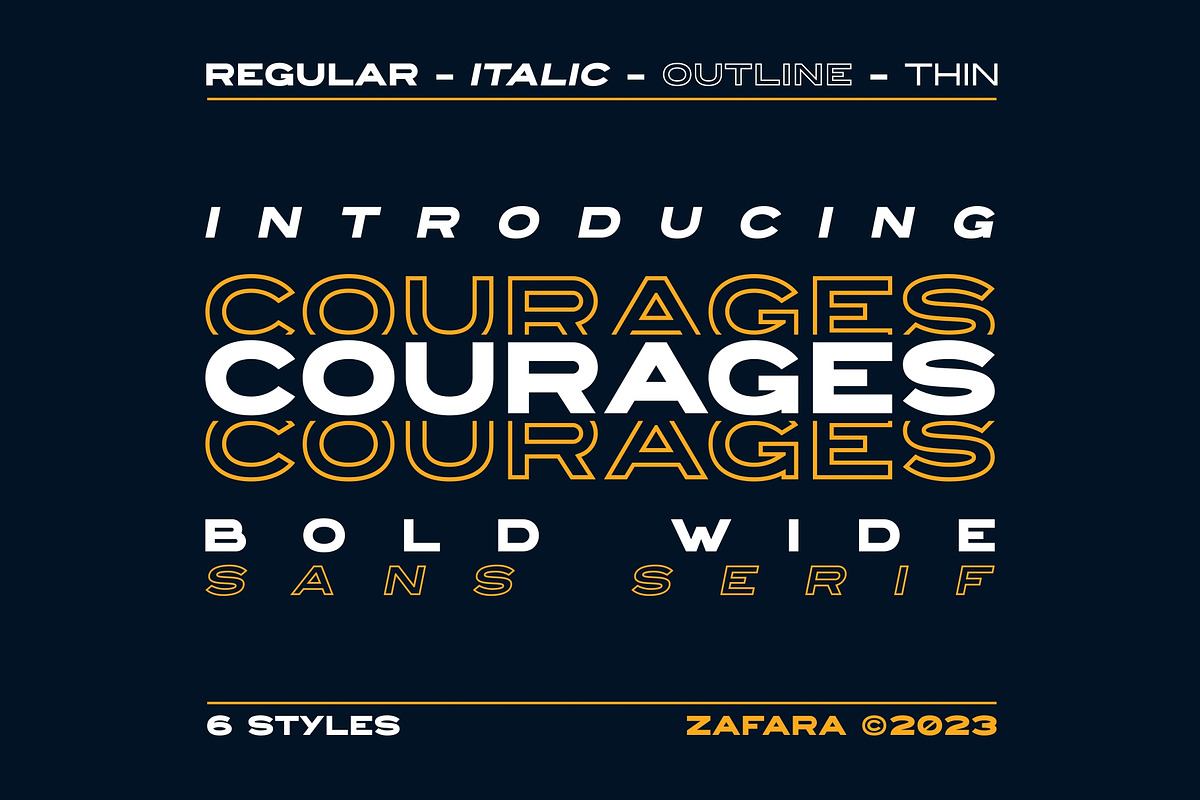
COURAGES - Bold Wide Sans Serif Font Free Download is a striking and powerful typeface designed to make a bold statement. With its wide stance, strong lines, and clean structure, COURAGES is perfect for headlines, logos, posters, sports branding, tech visuals, and impactful marketing materials. It’s built for attention-grabbing designs that demand clarity and strength.
This font’s all-caps style and modern geometry make it highly legible and ideal for large-format visuals. Whether you’re creating bold packaging or a dynamic website header, COURAGES brings confidence and presence to your work.